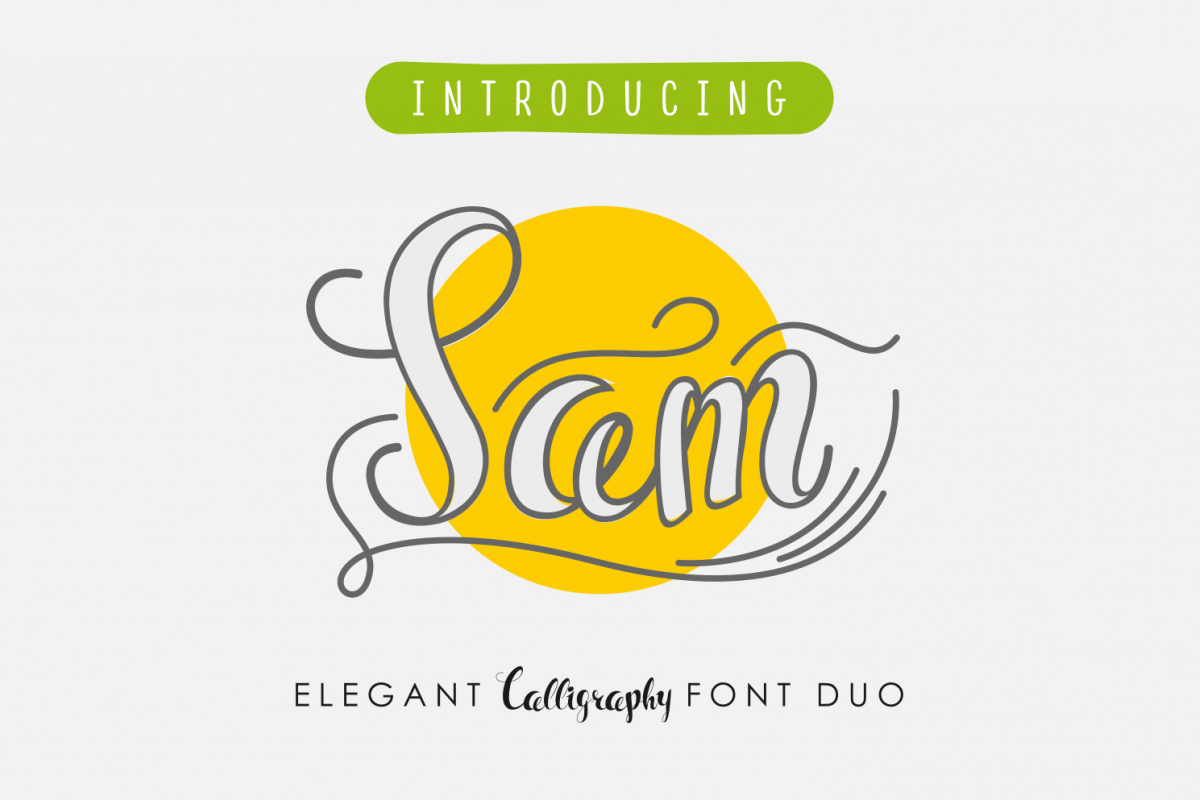
Sam
Hello Again guys! Introducing SAM. This is not just another hand lettering brush and pen font. This is an unusual awesome font which was made by hand by one of our talented Artist in 2017. This font can be used in daily basis. From poster to invitation, to signage or billboard.SAM will also be great for music label cover, branding, packaging food or stationery. This will also great for merchandise : mug, shirt, etcThis font will Work on PC & Mac with Simple installations. Accessible in the Adobe Illustrator, Adobe Photoshop, Adobe InDesign, even work on Microsoft Word. It’s also PUA Encoded Characters – Fully accessible without additional design software.